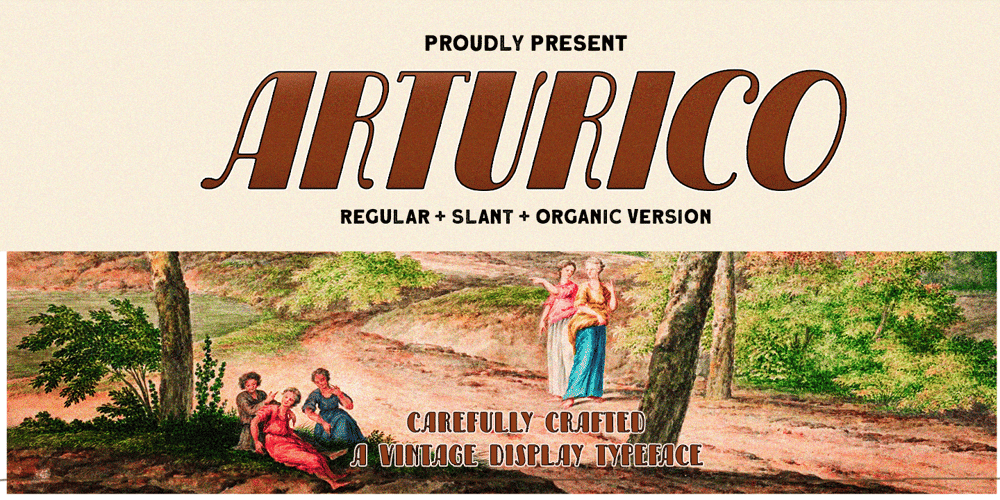
Arturico Font Family was designed by Hendry Juanda and published by Letterhend. Arturico contains 4 styles and family package options. Arturico is a high contrast font with classy and classic look with vintage feel, inspired by 60s and 70s signages. This font perfectly made to be applied especially in logo, and the other various formal forms such as invitations, labels, logos, magazines, books, greeting / wedding cards, packaging, fashion, make up, stationery, novels, labels or any type of advertising purpose.Features : numbers and punctuation multilingual & alternate PUA encoded We highly recommend using a program that supports OpenType features and Glyphs panels like many of Adobe apps and Corel Draw, so you can see and access all Glyph variations.